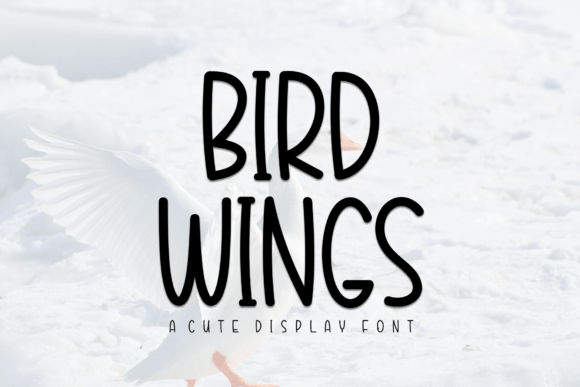
The Perfect Blend of Luxury and Casual: Unveiling the Bird Wings Font
Have you ever been stuck on a design project, staring blankly at your computer screen, trying to find the perfect font to capture the essence of your brand? That was me last week, until I stumbled upon the Bird Wings Font. It’s like a breath of fresh air, isn’t it? The moment I saw its handwritten, marker-drawn style, I knew I had found the missing piece to my design puzzle.
Bird Wings Font is a beautifully crafted typeface that effortlessly combines luxury and casual elements, making it a perfect fit for a wide range of applications, from branding and logos to wedding supplies and marketing promotions. Its relaxed and sporty feel adds a touch of elegance to any design, making it a valuable asset for designers looking to create memorable and impactful visuals.
Bird Wings Font Key Features
- Unique Characteristics: The font features a distinctive, hand-drawn design with organic shapes and fluid lines, giving it a natural and whimsical feel.
- Scalability: The font is optimized for use in various font sizes, from small captions to large headlines, without compromising its legibility or aesthetic appeal.
Bird Wings Font Review
I’ve had the chance to work with the Bird Wings Font, and I must say it’s a unique addition to any design project. ✨
- Its playful, whimsical feel makes it perfect for children’s books, nursery rhymes, or any project that needs a touch of magic.
- The font’s irregularities and imperfections add to its charm, making it stand out in a crowd.
- It’s available in a range of weights and styles, giving designers plenty of options to choose from.
- ⚠️ The font may be too ornate for some projects, and its readability can suffer in larger sizes or when used for extensive blocks of text.
- ⚠️ Some characters may not render properly in certain software or operating systems, which can lead to inconsistencies in the final design.
Overall, I think the Bird Wings Font is a great choice for designers who want to add a touch of personality to their projects. It’s perfect for projects where a more whimsical feel is required, but it may not be the best choice for projects that require a more formal or professional tone.
The Bird Wings Font is perfect for:
- Creating whimsical and playful designs.
- Adding a touch of elegance to your branding.
- Designing children’s books and educational materials.